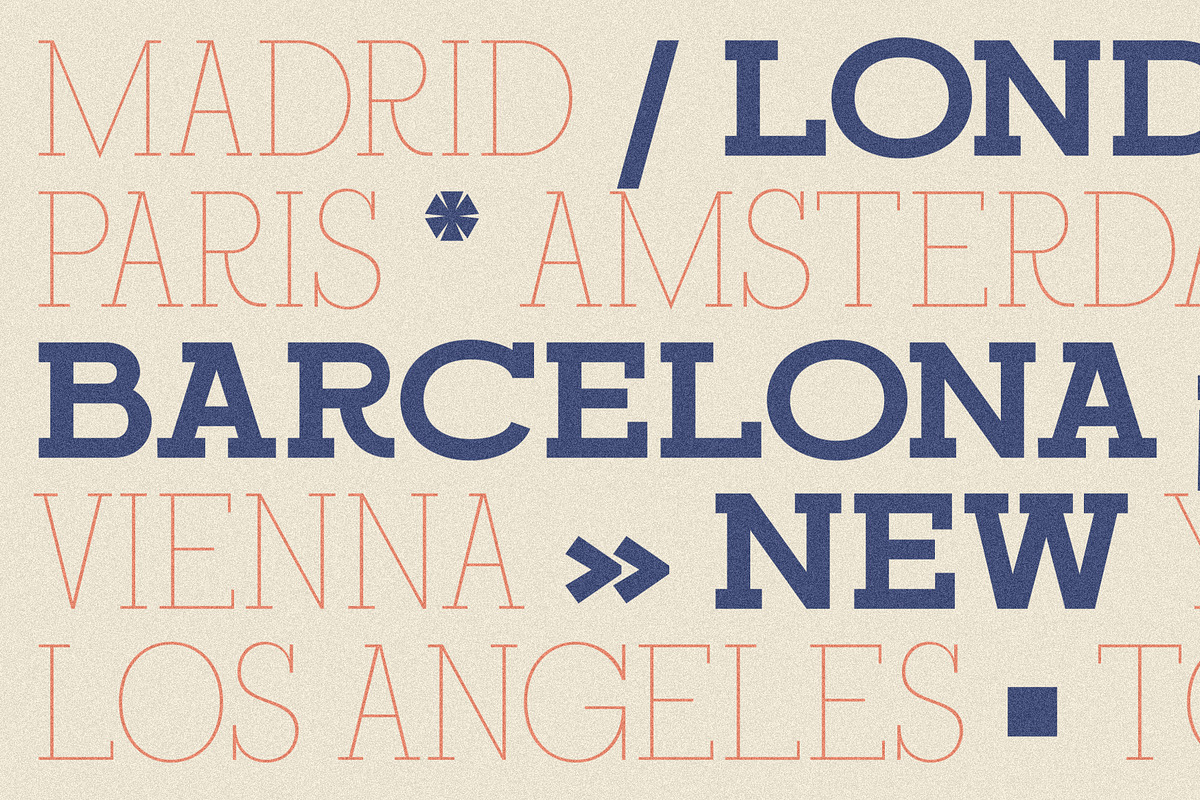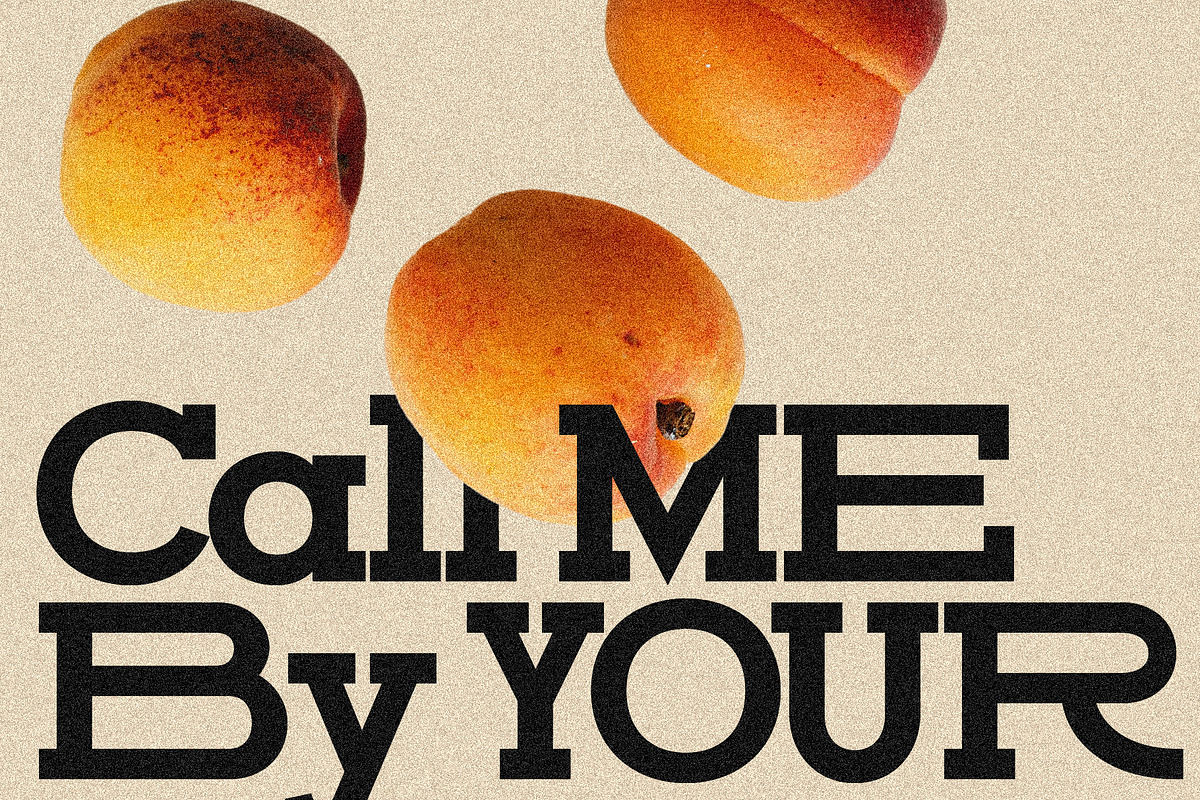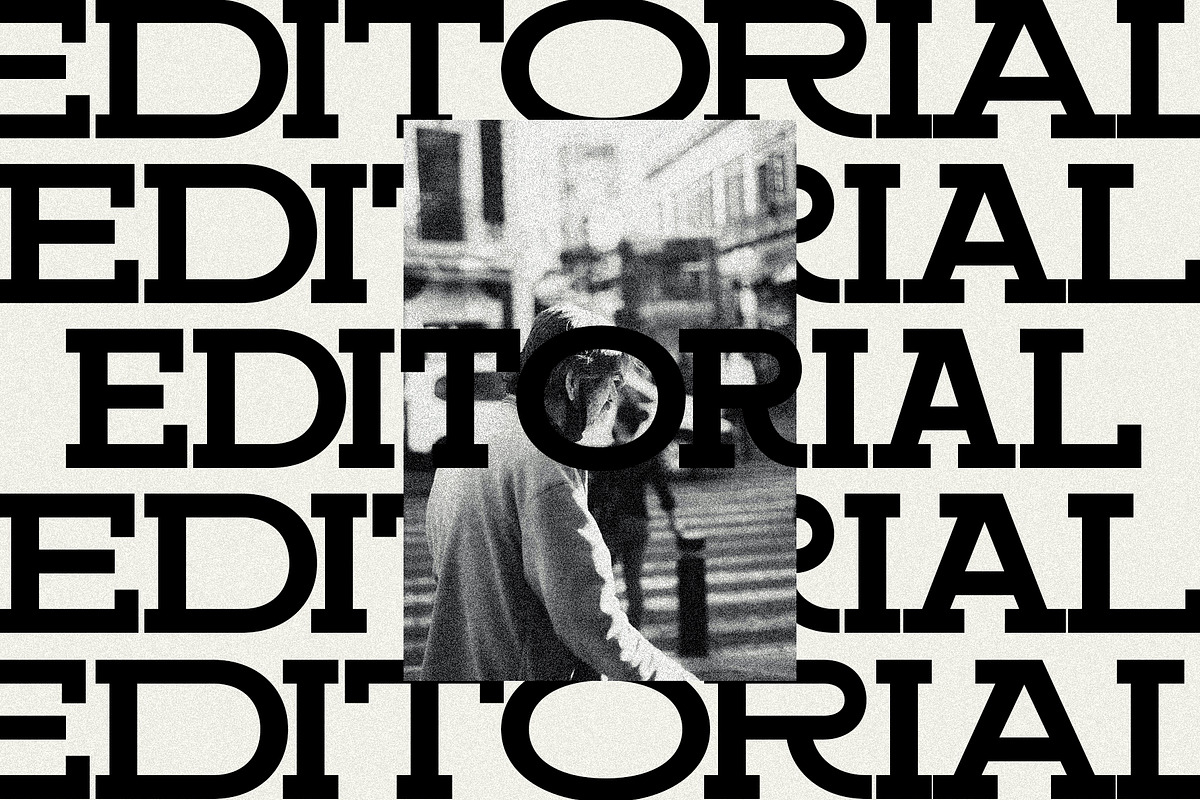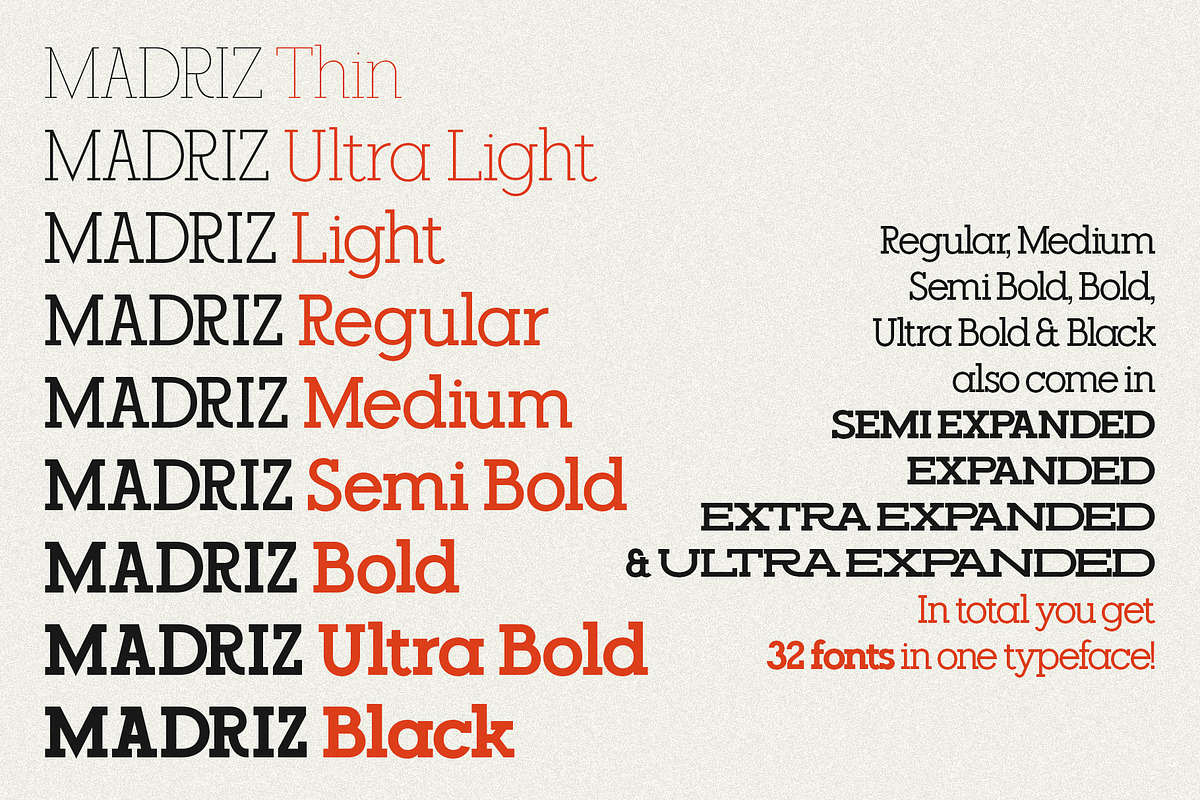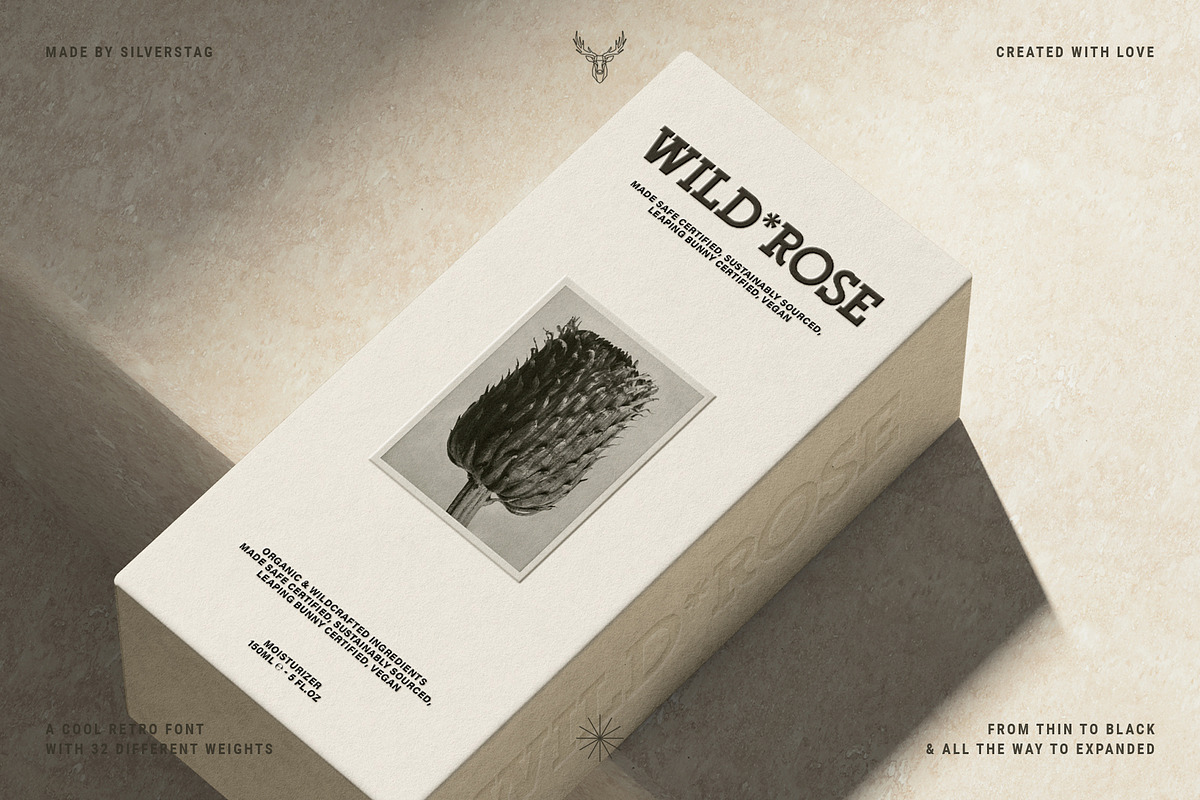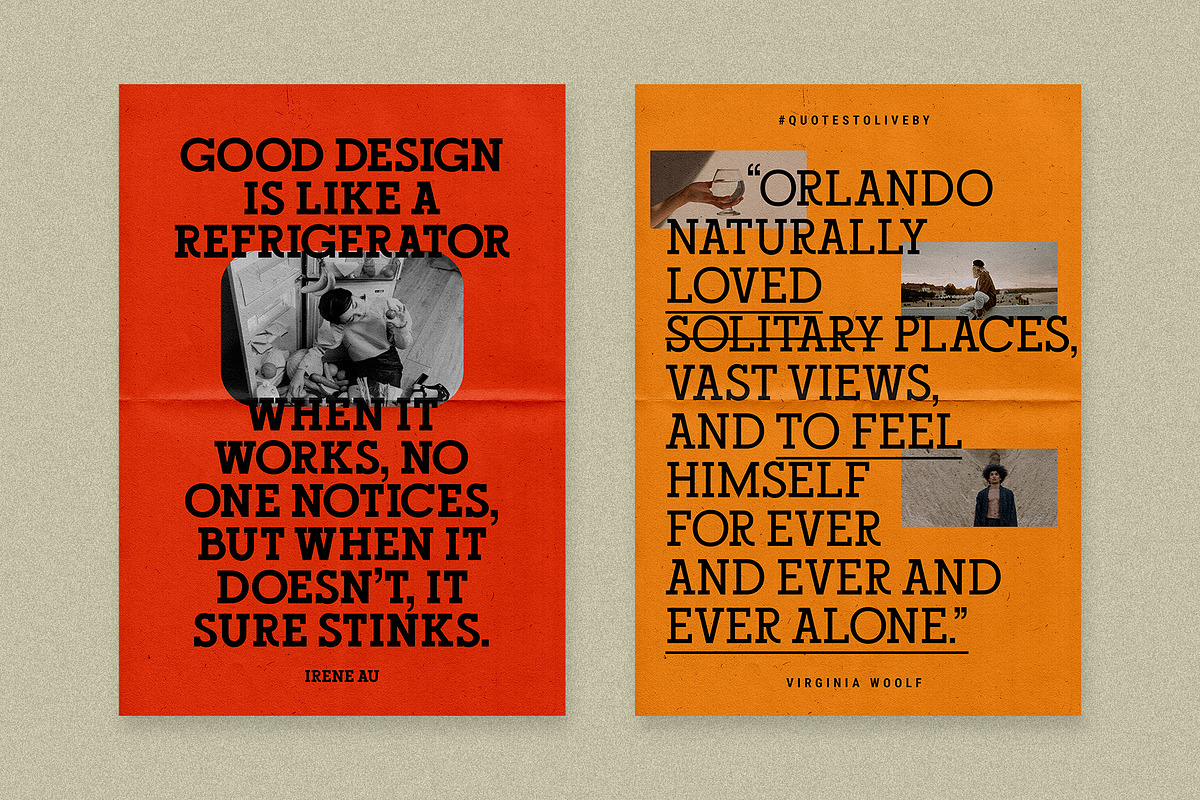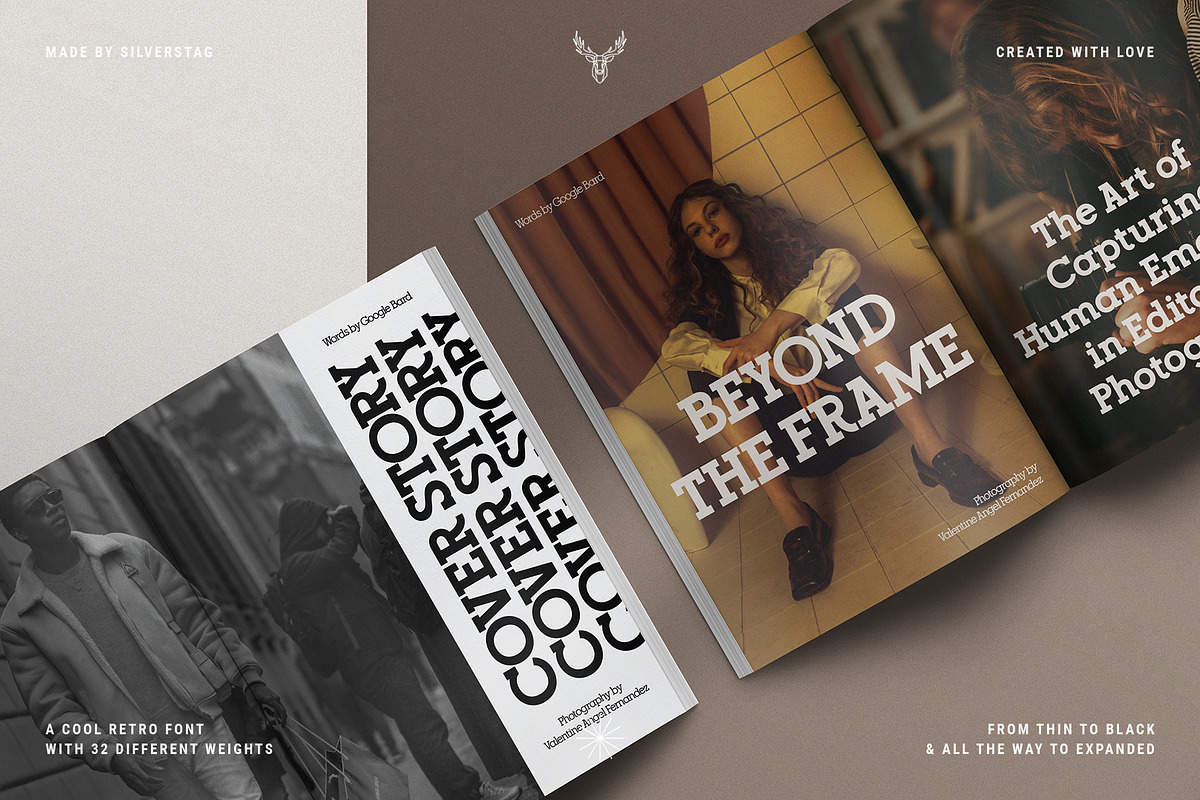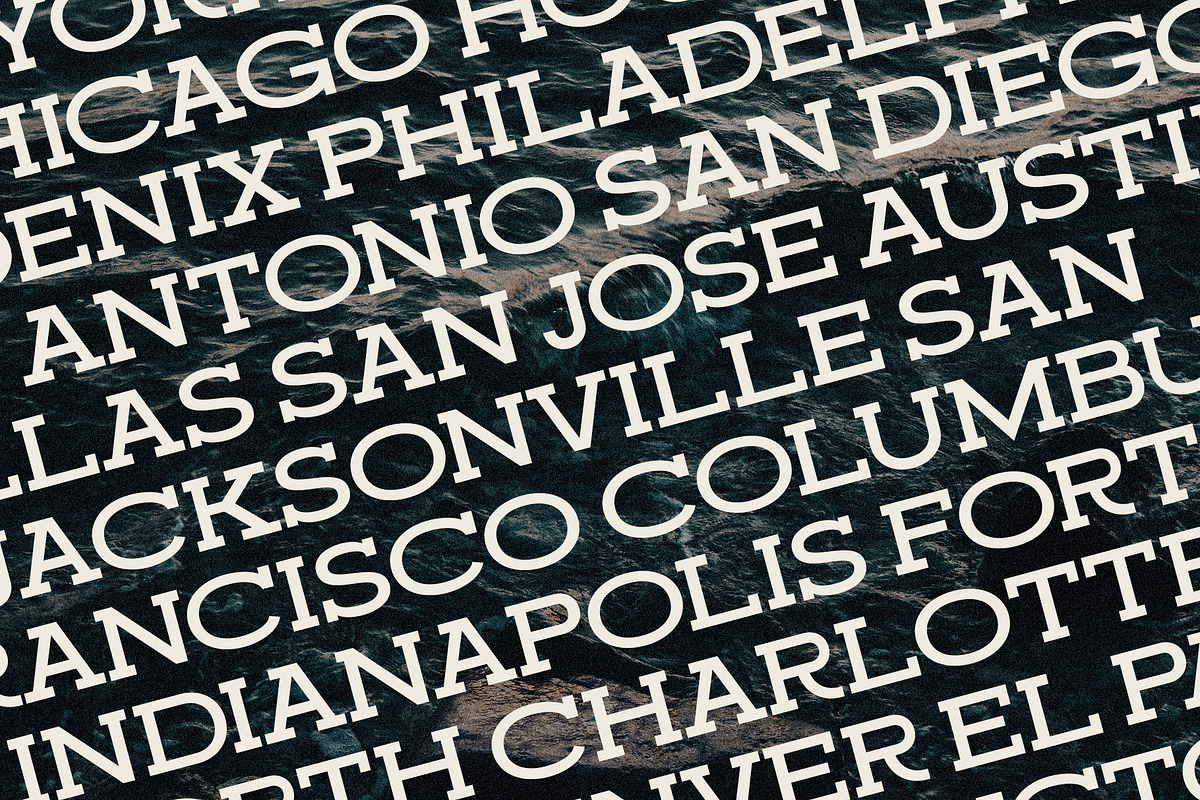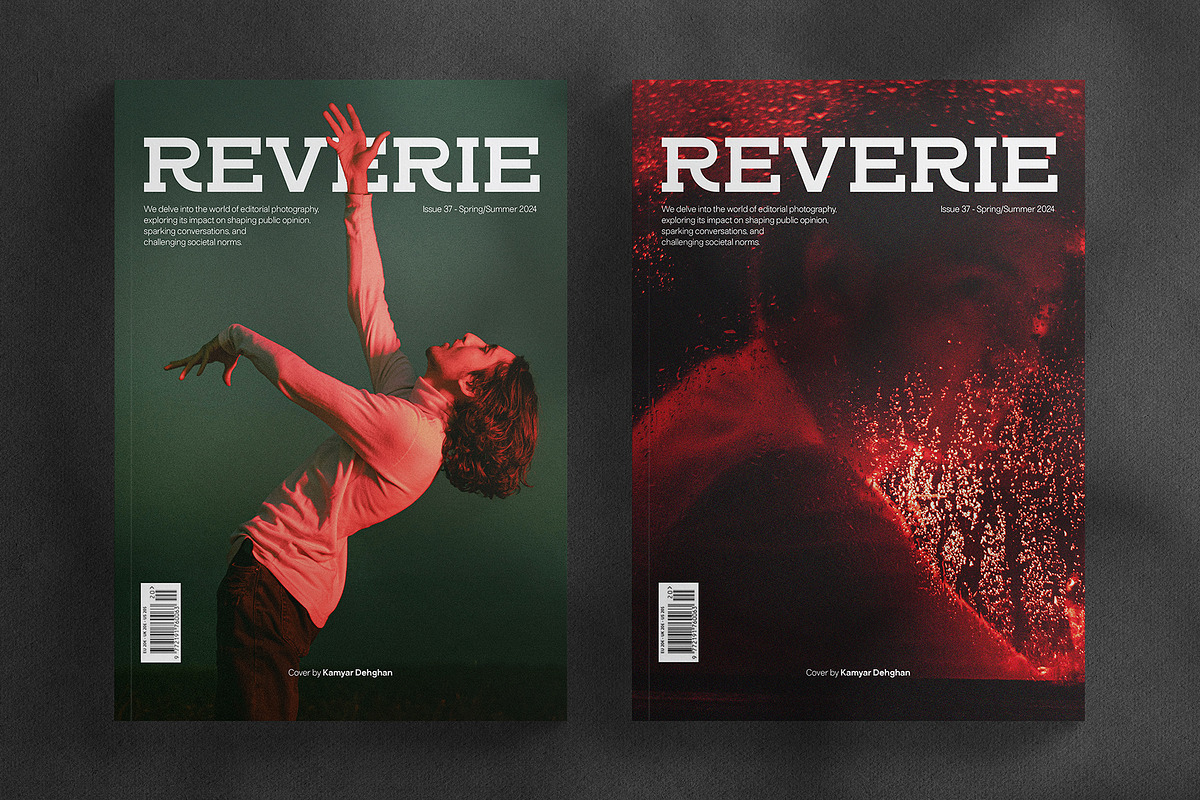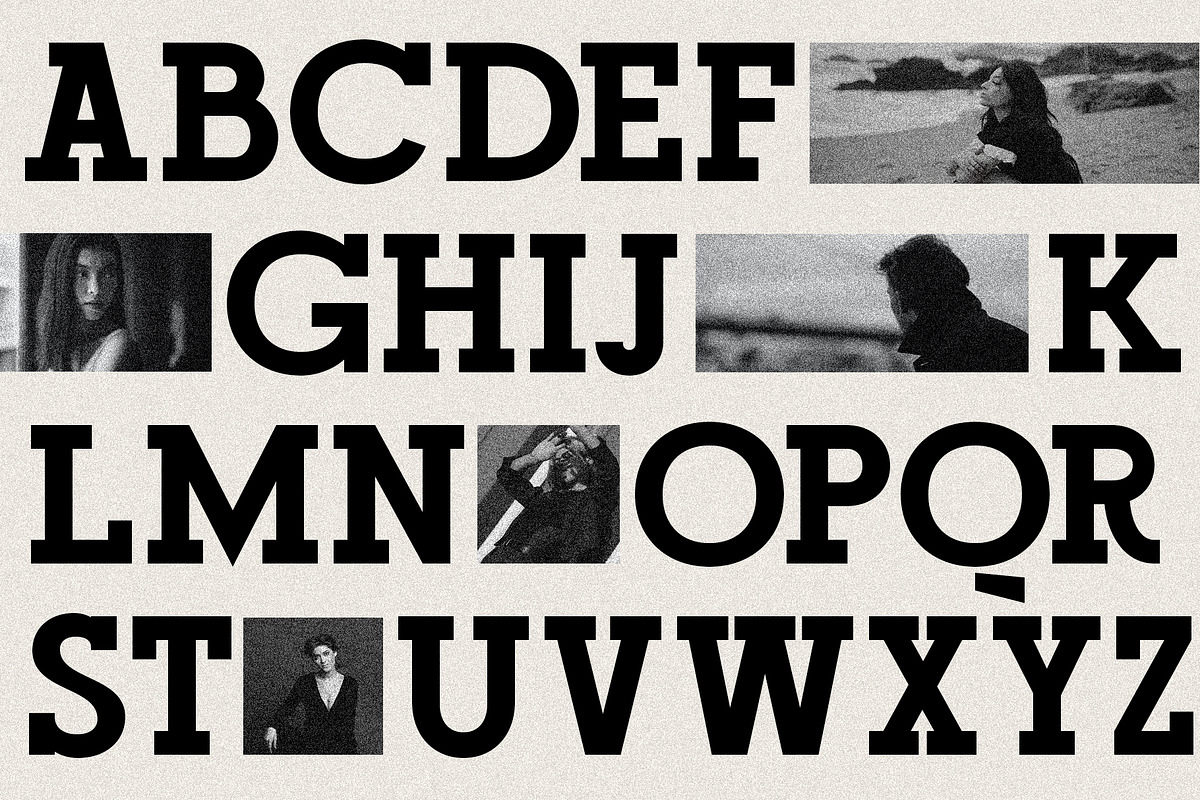
Madriz - Retro Slab Serif Typeface
Introducing Madriz, a slab serif font with a retro feel that's perfect for any project that needs a touch of old-school charm.
With over 32 fonts in one font family, Madriz offers a wide range of styles to suit any need. You can choose from Thin to Black weights and Regular to Extra Expanded widths to create your perfect look.
Madriz is inspired by the old-school signage of Madrid, Spain. The name "Madriz" is actually the affectionate nickname that Madrileños, the people of Madrid, gave to their city. The font's bold, blocky letters capture the essence of Madrid's vibrant and historic streets.
Madriz's versatile nature makes it a great choice for a wide range of projects. Its bold, retro style is perfect for showcasing heritage brands or giving a modern touch to classic designs. Madriz can also be used to create a sense of nostalgia, making it ideal for retro-themed projects or campaigns.
Here are some of the ways you can use Madriz:
- Titles and headings: Madriz's bold, eye-catching style is perfect for titles and headings.
- Text blocks: Madriz's wide range of weights and widths makes it suitable for text blocks, from body copy to large paragraphs.
- Logos and branding: Madriz's retro charm makes it a great choice for logos and branding.
With its 32 font styles and support for over 90 languages, Madriz is an incredibly powerful tool for any designer. It can be used to create a variety of looks, from classic and elegant to modern and edgy. Whether you're working on a print project, a web design, or an app, Madriz has the potential to make a lasting impression.
Madriz is the perfect font for anyone who wants to add a touch of old-school charm to their designs. With its wide range of styles and features, Madriz is sure to make a statement in any project.